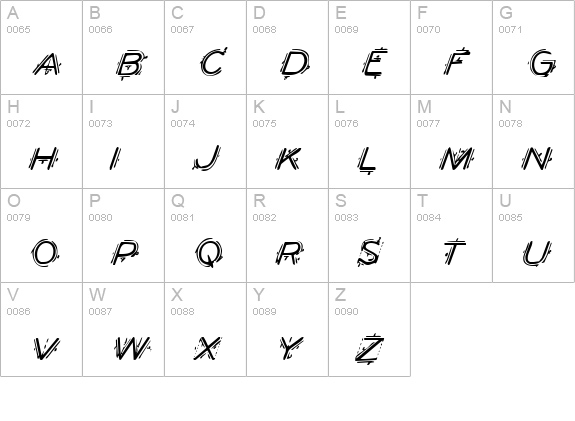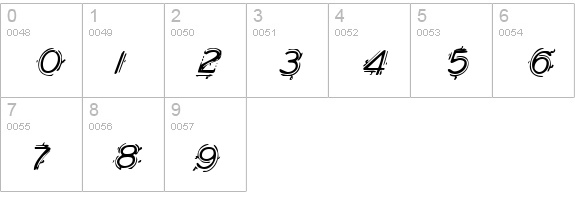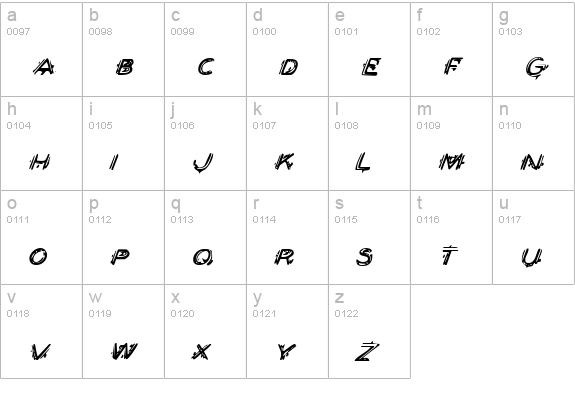
Berserker Italic is a distinctive, italic variant in the Berserker typeface family \xE2\x80\x94 well suited to design and typography projects.
Berserker Italic font is a bold and dynamic typeface that exudes power and intensity. Its aggressive slant and strong, thick strokes make it perfect for making a bold statement in your designs. The Berserker Italic font is ideal for creating eye-catching headlines, posters, logos, and more. What sets Berserker Italic font apart is its unique blend of strength and style. The italicized version adds a touch of flair and drama, making your text stand out with a sense of urgency and energy. And the best part? Berserker Italic font is available for free download at FontsMarket.com. So you can unleash the power of this fierce typeface in your projects without any cost. Download Berserker Italic font today and make your designs roar with intensity!